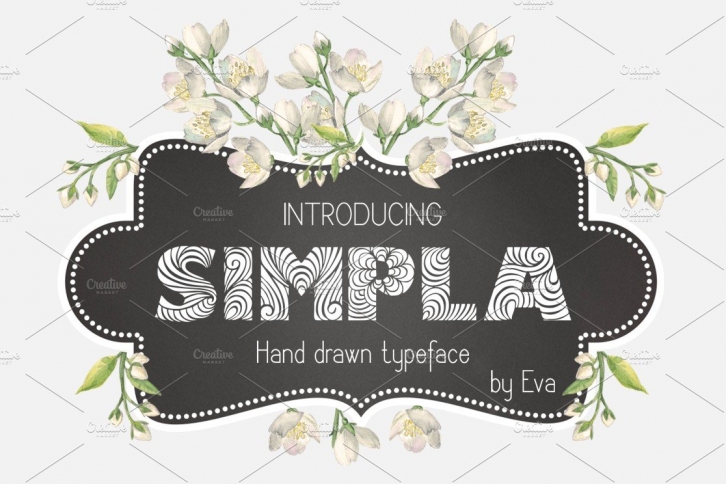
Simpla font - created for crafters who look for fresh fancy decorated letters.
The full font contains capital letters and numbers (see picture)
Perfect for gift personalisation, vinyl stickers, product packaging, branding projects, wedding stationeries, homeware designs and more.